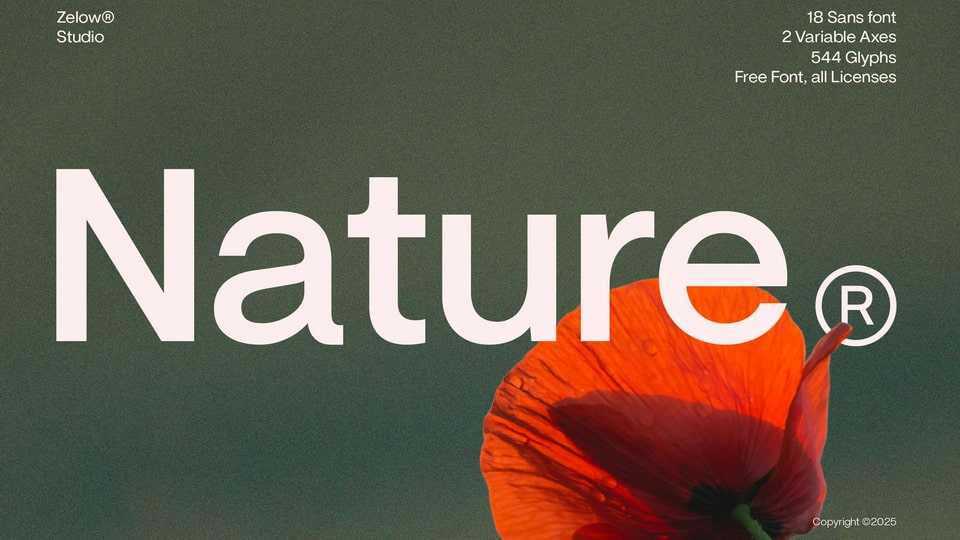
Download ZT Nature font, a modern sans serif typeface that combines geometric precision with an organic sense of rhythm developed to function across both print and digital environments
Designer: Zelow Type